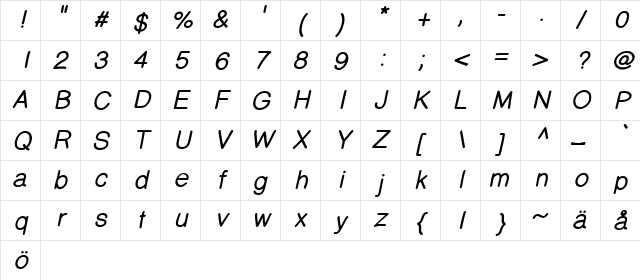
Complete PrinsesstartaDEMO BoldItalic glyph index. Displaying only characters natively supported by PrinsesstartaDEMO BoldItalic font.
PrinsesstartaDEMO is a composed and adaptable typeface that performs quietly and consistently across a wide range of design contexts. The slanted form adds forward momentum and visual energy. Its bold stroke weight gives it real presence on the page.
Pro Tip: Use PrinsesstartaDEMO for emphasis, pull quotes, and subheadings where its slanted energy can add rhythm to the layout.